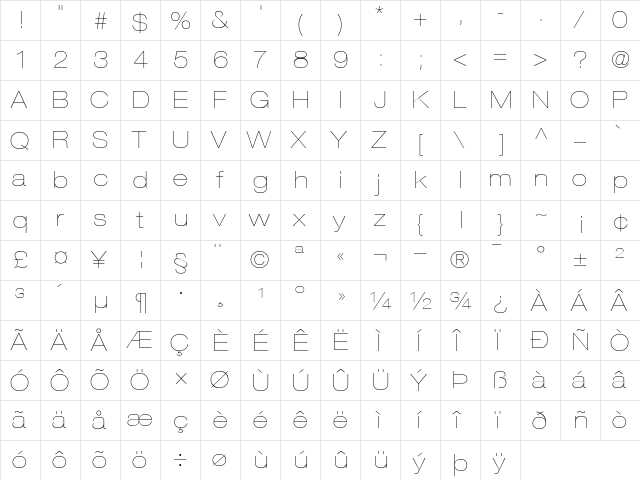
Helvetica23-ExtendedUltraLight Ultra Light
Design Context for Helvetica23-ExtendedUltraLight Typeface
Helvetica23-ExtendedUltraLight offers clean, dependable letterforms without strong stylistic allegiance, making it a practical choice for designers who need flexibility. The delicate stroke weight brings airiness and refinement to layouts.